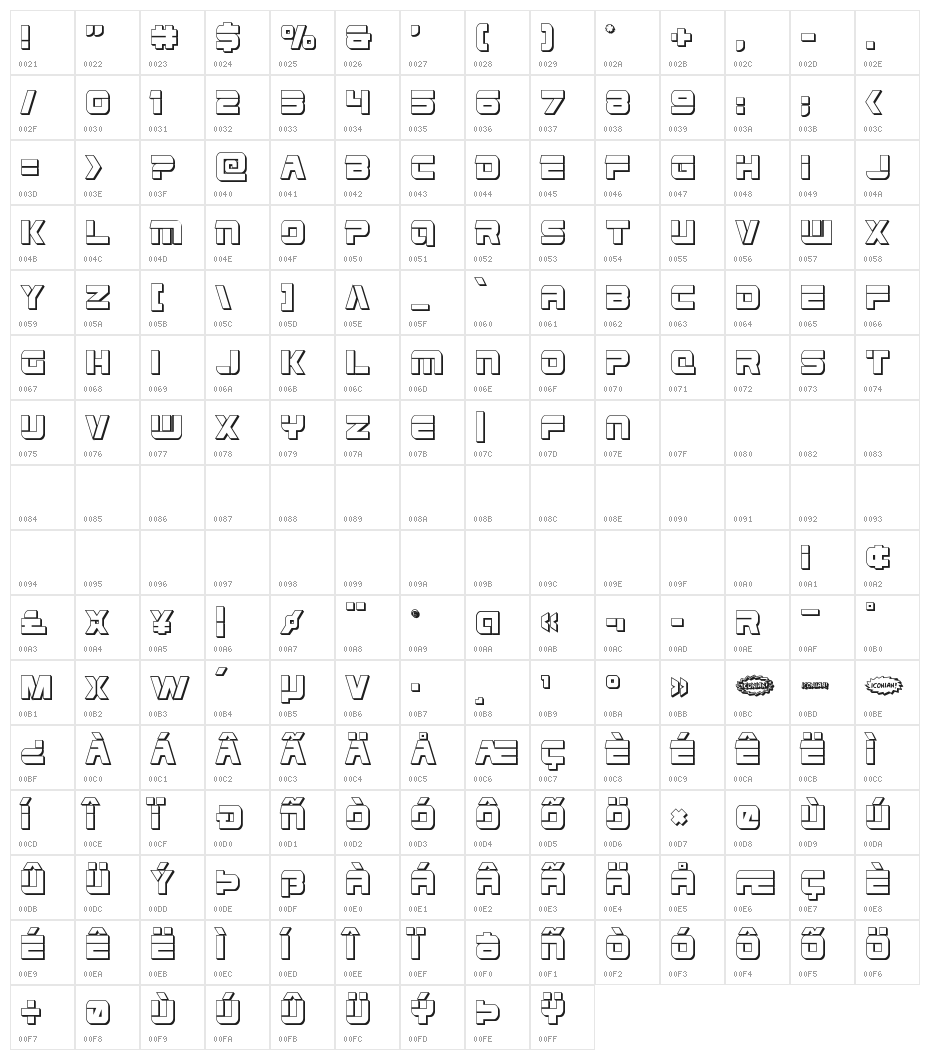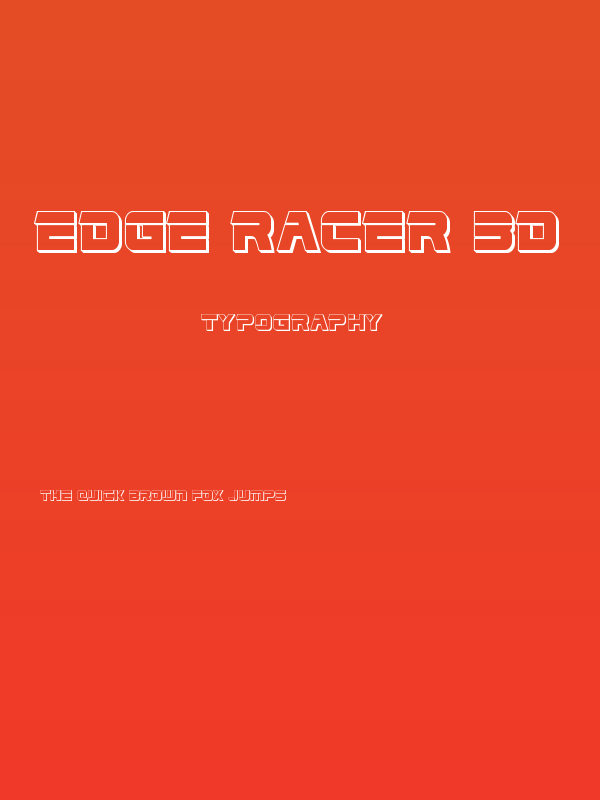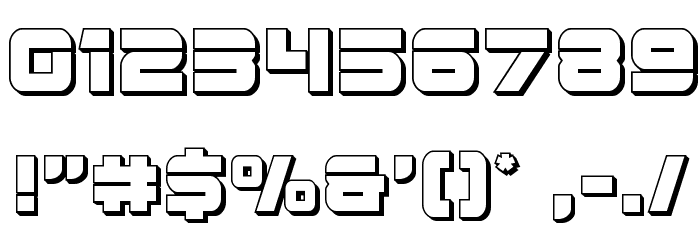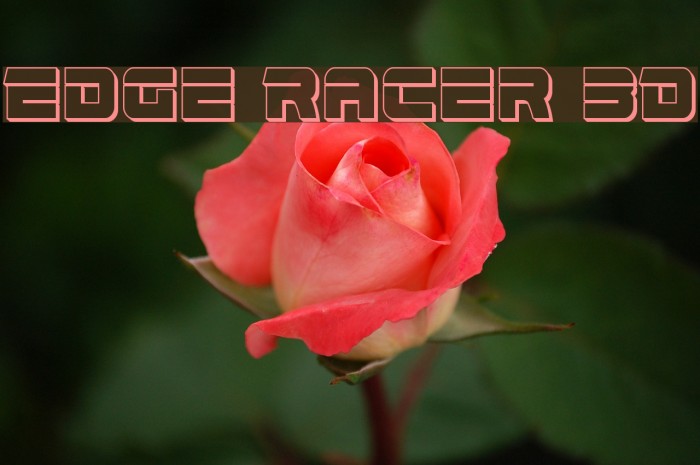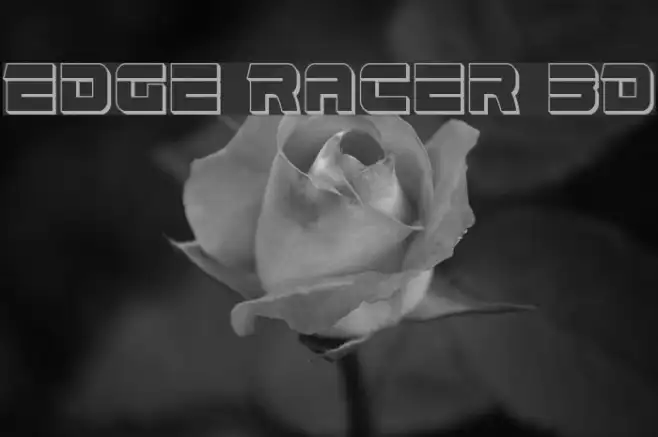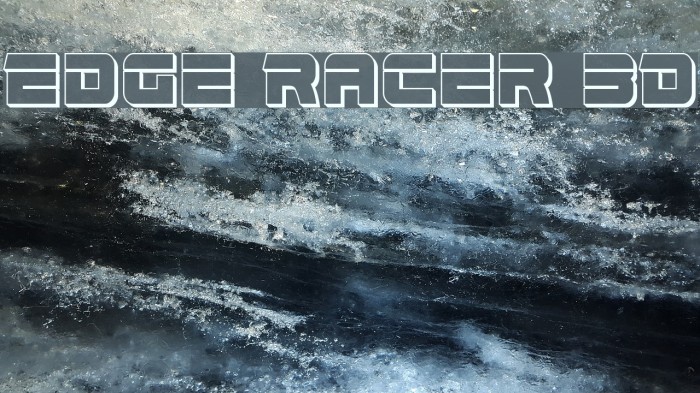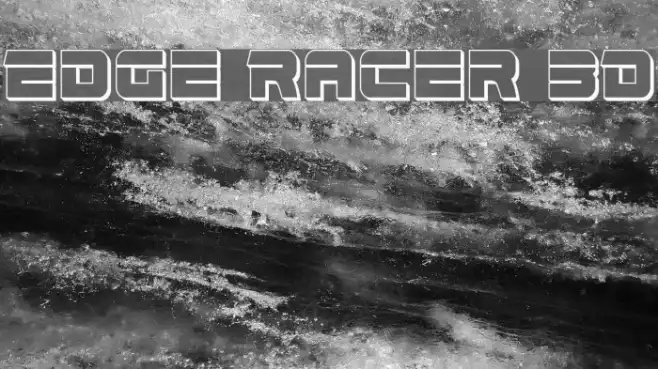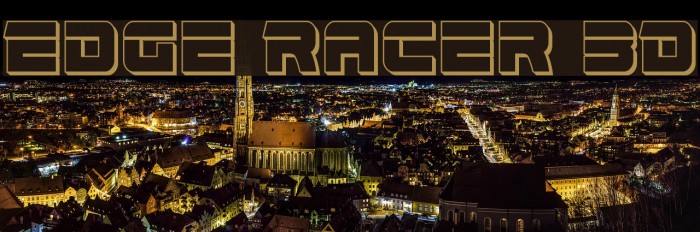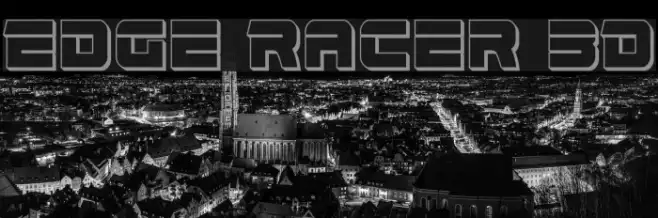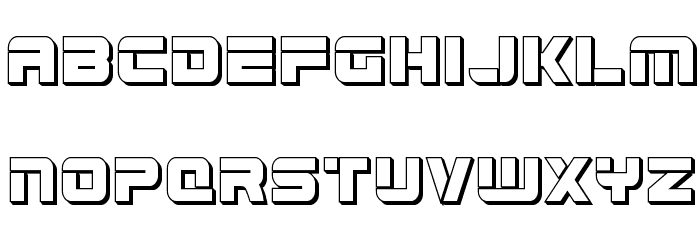
Edge Racer 3D Font
Edge Racer 3D Description
This font features a bold, futuristic design with a distinct three-dimensional effect. The characters are outlined, creating a hollow appearance that adds depth and dimension. The geometric shapes and sharp angles give it a modern and edgy look, reminiscent of digital or sci-fi themes. Each letter is crafted with precision, maintaining a consistent width and height across the set. The numbers and special characters follow the same design principles, ensuring uniformity and cohesion throughout. This font is ideal for projects that require a strong visual impact and a contemporary aesthetic.
| Proposed Projects | Ideal for video game titles, tech branding, sci-fi posters, and digital media. |